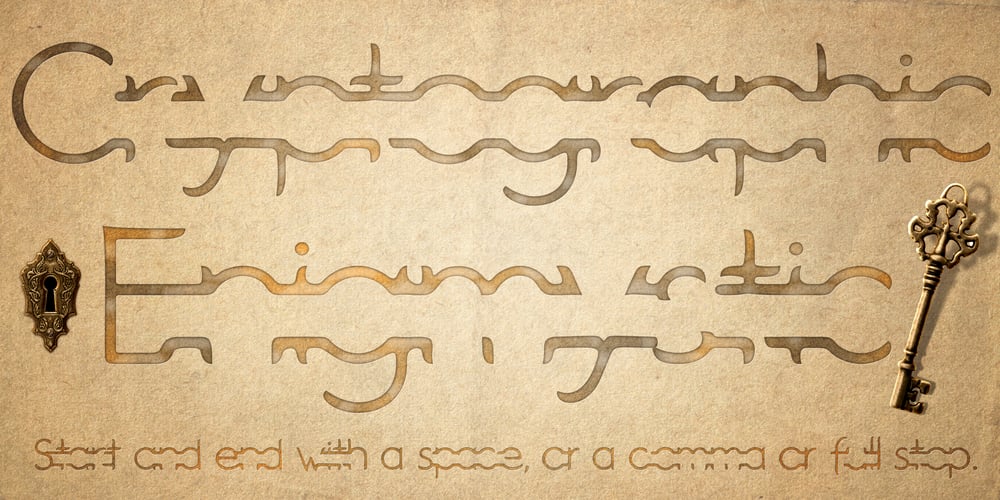
DT Enigmystic Font Family was designed by Scott Spensley and published by Dragon Tongue Foundry. DT Enigmystic contains 6 styles and family package options. When reading text, the most informative parts of the written word for a human brain to identify, are the top and bottom edges of each word, and to a lesser degree, the leading and trailing edges. The overall shape has more useful info than the inner workings of each word.DT Enigmystic, is a display font family that gives you just that. The outer edge.At first glance, these letters don’t look like standard letters, and yet, they are perfectly readable.And it is a ‘somewhat’ smart text, in that it will automatically complete the trailing edge of every word, whenever it sees a comma, period or space. Similarly, it will automatically complete the leading edge of every word following a space.When used as display test or as a heading, the first letter will need to be preceeded by a space, to achieve a full enclosed word outline. As with most of my fonts, do use Contextual Ligatures. This allows the letters to come alive.When generated here on this webpage, contextual ligatures are not turned on, and so the words do not appear completely closed at their beginnings and ends. But as can be seen in the poster images, these outlined words do automatically complete themselves when contextual ligatures are active.